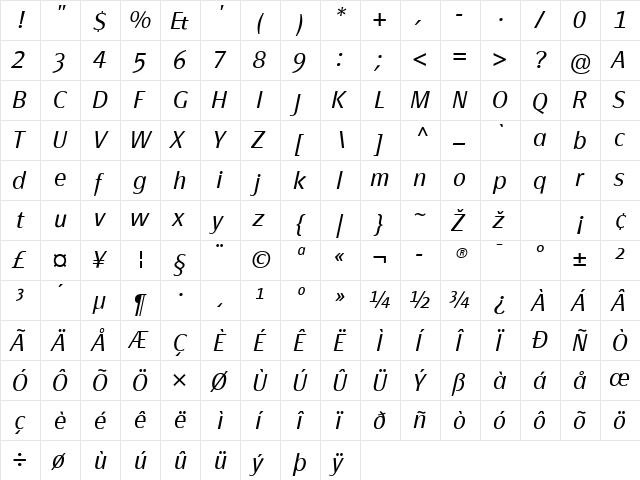
PageSansTF-LightItalic Regular Font Preview
| Foundry | Albert Boton, published by FontShop International for the FontFont Library |
| Designer | Albert Boton |
Design Context for PageSansTF-LightItalic Typeface
PageSansTF-LightItalic takes a measured approach to typography — its balanced proportions and neutral character make it a reliable workhorse for both digital and print work. Its italic angle brings a sense of urgency and motion to the letterforms. The delicate stroke weight brings airiness and refinement to layouts.